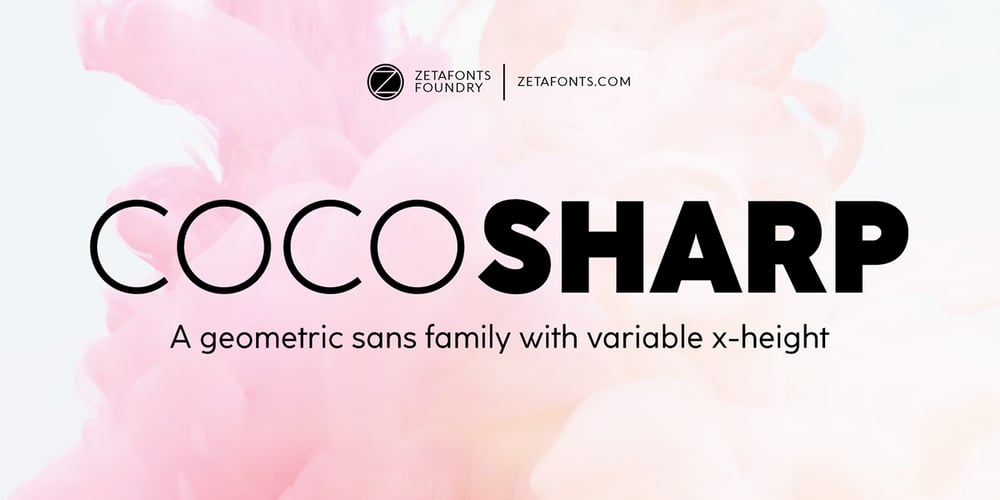
Coco Sharp
Coco Sharp font
Coco Sharp Font Family was designed by Francesco Canovaro, Andrea Tartarelli, Cosimo Lorenzo Pancini and published by Zetafonts. Coco Sharp contains 62 styles and family package options. Coco Sharp is the newest evolution of the Coco typographic project, developed since 2013 by Cosimo Lorenzo Pancini for the foundry Zetafonts, with the help of Francesco Canovaro and Andrea Tartarelli. Influenced by vernacular grotesques sign-painting and modernist ideals, and inspired by the classy aesthetic of fashion icon Coco Chanel, Coco is drawn on a classic geometric sans skeleton but applies humanist proportions and visual corrections to key letters with the aim to create a warmer, subtly vintage texture on the page and on the screen. Coco Sharp drops the rounded corners of previous incarnations (Coco Gothic and Cocogoose) to pair the typeface display and logo capability with a sharper definition for text use. As in the other Coco families, a wide range of alternate letterforms allows to express different historical moods, including elegant, quirky and unexpected designs able to transform a simple word in a memorable wordmark. The other peculiarity of Coco Sharp lies in the wide choice of x-heights given to the user, both by providing a variable version and five graded sub-families, that allows designers to fine-control text readability and space usage. Large and XLarge versions provide big and easily readable lowercase letters, perfect for small point size typesetting or bold copywriting; Small and XSmall provide smaller lowercase letters with the elegant proportions of Futura and its modernist eponyms, optimized for display use or for adding a classy flare to body text; the Regular x-height offers a “one size fits all” solution that works both for texts and for display use.Alle the 60 weights of Coco Sharp come with a full set of open type features allowing faultless typesetting thanks to small capitals, positional numbers & case sensitive forms. Use Coco Sharp out of the box as a solid workhorse family or enjoy discovering the limitless possibilities of its 2000+ latin, cyrillic and greek glyphs covering over 200 languages worldwide.• Suggested uses: perfect for modern branding and logo design, editorial design, web design, packaging and countless other projects;• 62 styles: 6 weights + 6 italics x 5 different x-heights + 2 variable fonts;• 2011 glyphs in each weight;• Useful OpenType features: Access All Alternates, Small Capitals From Capitals, Case-Sensitive Forms, Glyph Composition / Decomposition, Denominators, Fractions, Kerning, Lining Figures, Localized Forms, Mark Positioning, Mark to Mark Positioning, Alternate Annotation Forms, Numerators, Oldstyle Figures, Ordinals, Proportional Figures, Stylistic Alternates, Scientific Inferiors, Small Capitals, Stylistic Set 1, Stylistic Set 2, Stylistic Set 3, Stylistic Set 4, Stylistic Set 5, Stylistic Set 6, Stylistic Set 7, Stylistic Set 8, Stylistic Set 9, Subscript, Superscript, Tabular Figures, Slashed Zero• 220 languages supported (extended Latin, Cyrillic, Greek alphabets): English, Spanish, Portuguese, French, Russian, German, Javanese (Latin), Vietnamese, Turkish, Italian, Polish, Afaan Oromo, Azeri, Tagalog, Sundanese (Latin), Filipino, Moldovan, Romanian, Indonesian, Dutch, Cebuano, Igbo, Malay, Uzbek (Latin), Kurdish (Latin), Swahili, Greek, Hungarian, Czech, Haitian Creole, Hiligaynon, Afrikaans, Somali, Zulu, Serbian, Swedish, Bulgarian, Shona, Quechua, Albanian, Catalan, Chichewa, Ilocano, Kikongo, Kinyarwanda, Neapolitan, Xhosa, Tshiluba, Slovak, Danish, Gikuyu, Finnish, Norwegian, Sicilian, Sotho (Southern), Kirundi, Tswana, Sotho (Northern), Belarusian (Latin), Turkmen (Latin), Bemba, Lombard, Lithuanian, Tsonga, Wolof, Jamaican, Dholuo, Galician, Ganda, Low Saxon, Waray-Waray, Makhuwa, Bikol, Kapampangan (Latin), Aymara, Zarma, Ndebele, Slovenian, Tumbuka, Venetian, Genoese, Piedmontese, Swazi, Zazaki, Latvian, Nahuatl, Silesian, Bashkir (Latin), Sardinian, Estonian, Afar, Cape Verdean Creole, Maasai, Occitan, Tetum, Oshiwambo, Basque, Welsh, Chavacano, Dawan, Montenegrin, Walloon, Asturian, Kaqchikel, Ossetian (Latin), Zapotec, Frisian, Guadeloupean Creole, Q’eqchi’, Karakalpak (Latin), Crimean Tatar (Latin), Sango, Luxembourgish, Samoan, Irish, Maltese, Tzotzil, Fijian, Friulian, Icelandic, Sranan, Wayuu, Papiamento, Aromanian, Corsican, Breton, Amis, Gagauz (Latin), Māori, Tok Pisin, Tongan, Alsatian, Atayal, Kiribati, Seychellois Creole, Võro, Tahitian, Scottish Gaelic, Chamorro, Greenlandic (Kalaallisut), Kashubian, Faroese, Rarotongan, Sorbian (Upper Sorbian), Karelian (Latin), Romansh, Chickasaw, Arvanitic (Latin), Nagamese Creole, Saramaccan, Ladin, Kaingang, Palauan, Sami (Northern Sami), Sorbian (Lower Sorbian), Drehu, Wallisian, Aragonese, Mirandese, Tuvaluan, Xavante, Zuni, Montagnais, Hawaiian, Marquesan, Niuean, Yapese, Vepsian, Bislama, Hopi, Megleno-Romanian, Creek, Aranese, Rotokas, Tokelauan, Mohawk, Onĕipŏt, Warlpiri, Cimbrian,